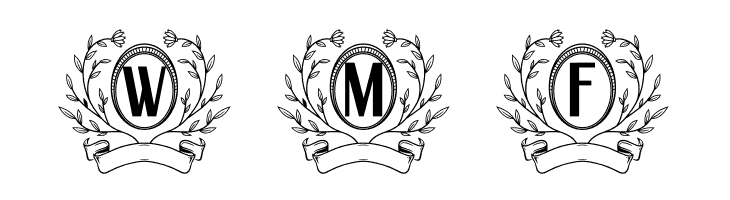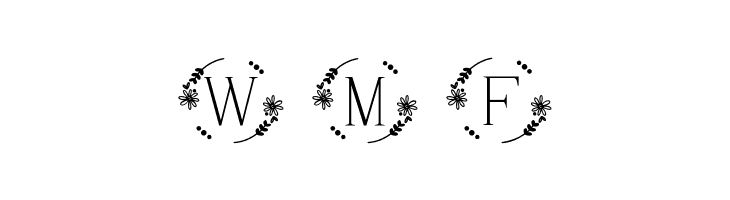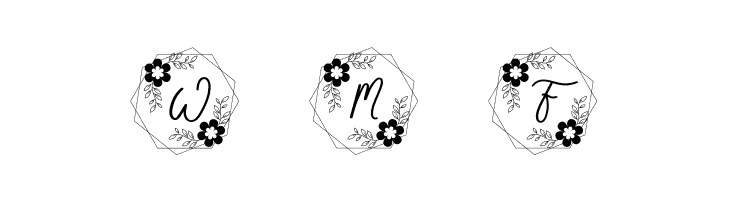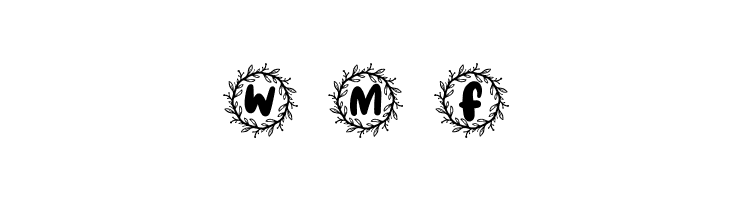
An ornate, monogram-style font with floral wreaths encasing each letter.
A decorative serif font with uppercase letters in floral wreaths.
An elegant, decorative font with script and serif elements encased in floral wreaths.
A decorative serif font with floral wreaths encasing each character.
An elegant script font with floral wreath decorations, perfect for romantic designs.
A bold, decorative font with characters encased in thorny wreaths.
A festive collection of Christmas-themed dingbats featuring classic holiday imagery.
A festive collection of Christmas-themed dingbats featuring ornaments, gifts, and holiday symbols.
A festive collection of Christmas-themed icons in a playful, decorative style.